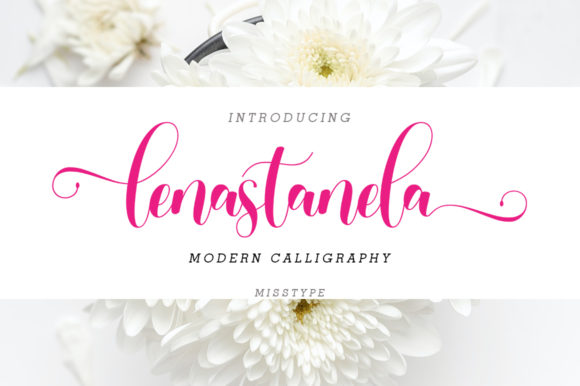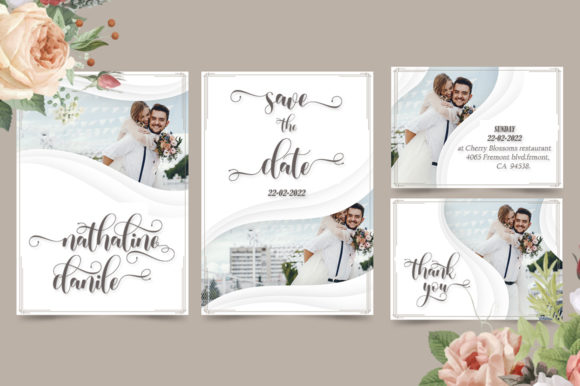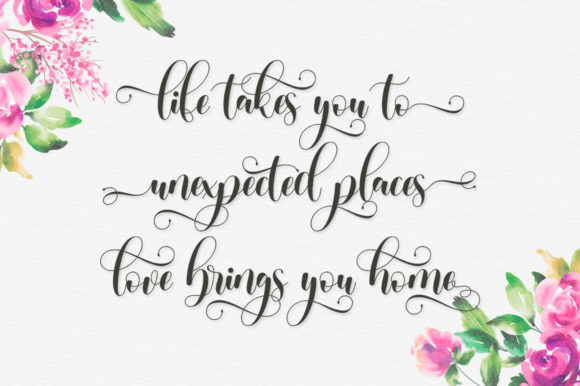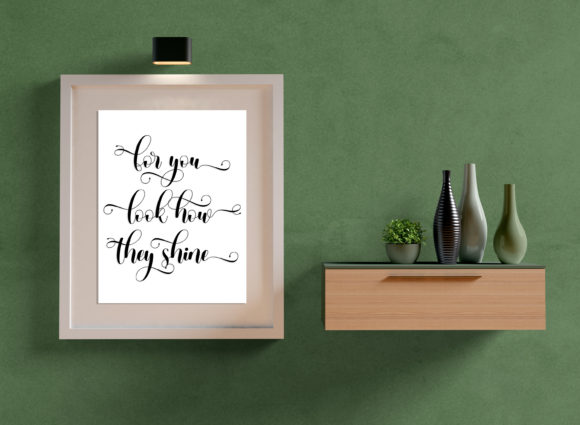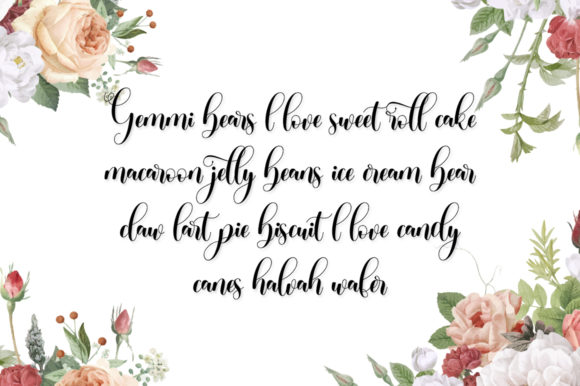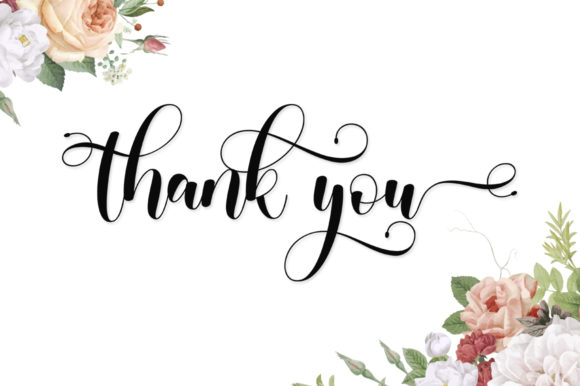
Lenastanela Font
About Lenastanela Font
Lenastanela is an incredibly stunning script with beautiful letters and extravagant swashes. Fall in love with its romantic charm!